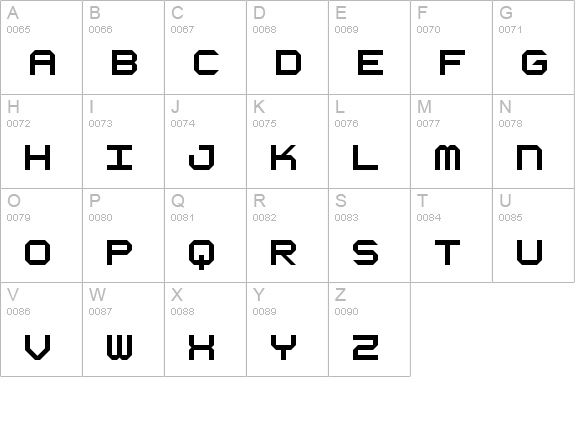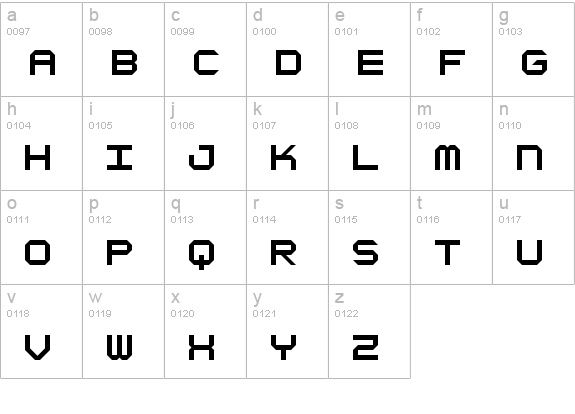
Octapost NBP Font Details
Introducing Octapost NBP, a dynamic and captivating font that will bring your designs to life. With its sleek and modern design, Octapost NBP is the perfect choice for those looking to make a bold statement. This versatile font is ideal for a wide range of projects, from logos and branding to posters and social media graphics. Octapost NBP is not only visually stunning, but it also offers incredible versatility. With multiple weights and styles to choose from, you have the freedom to create truly unique designs that stand out from the crowd. Whether you're going for a sleek and minimalist look or a more playful and energetic vibe, Octapost NBP has got you covered. And the best part? Octapost NBP is absolutely free! That's right, this incredible font is freely available to download at FontsMarket.com. Say goodbye to expensive font licenses and hello to creative freedom. With Octapost NBP, you can take your designs to new heights without breaking the bank. So what are you waiting for? Download Octapost NBP today and unleash your creativity. Whether you're a professional designer or just starting out, this font is sure to become an essential tool in your design arsenal. Don't miss out on the opportunity to elevate your designs with Octapost NBP. Get it now, for free, at FontsMarket.com.